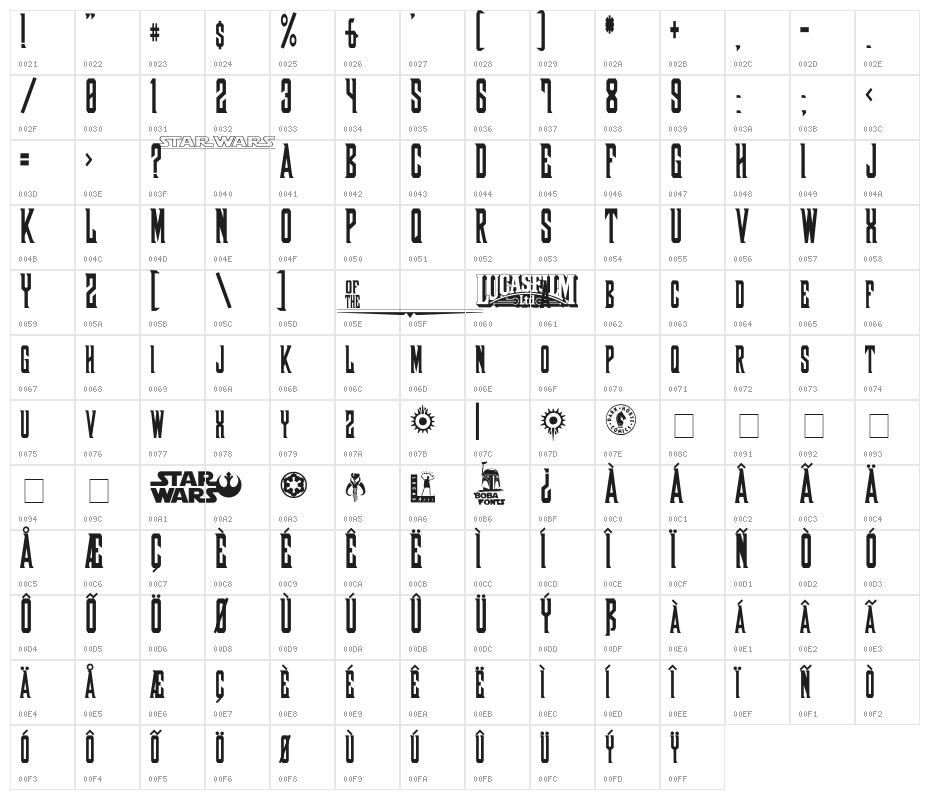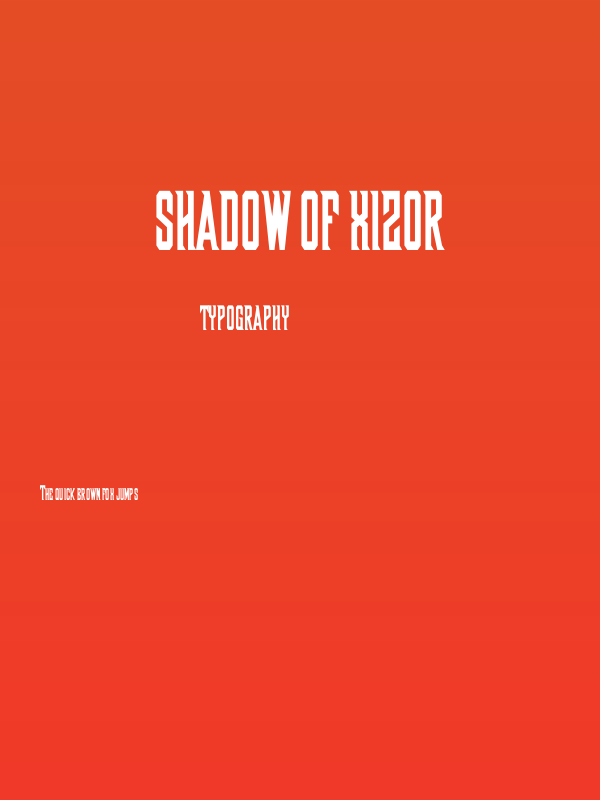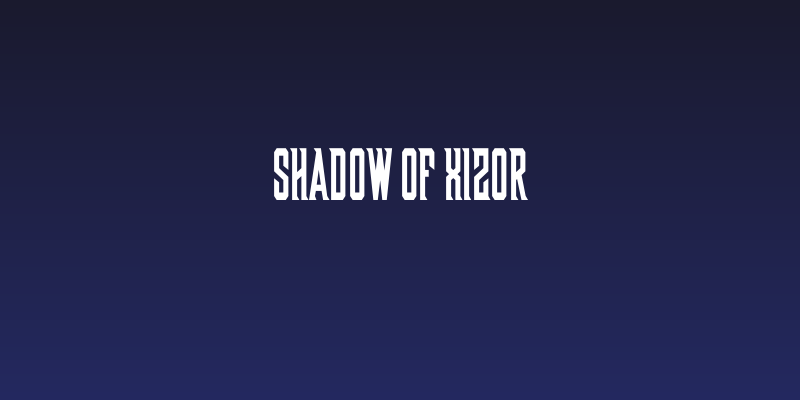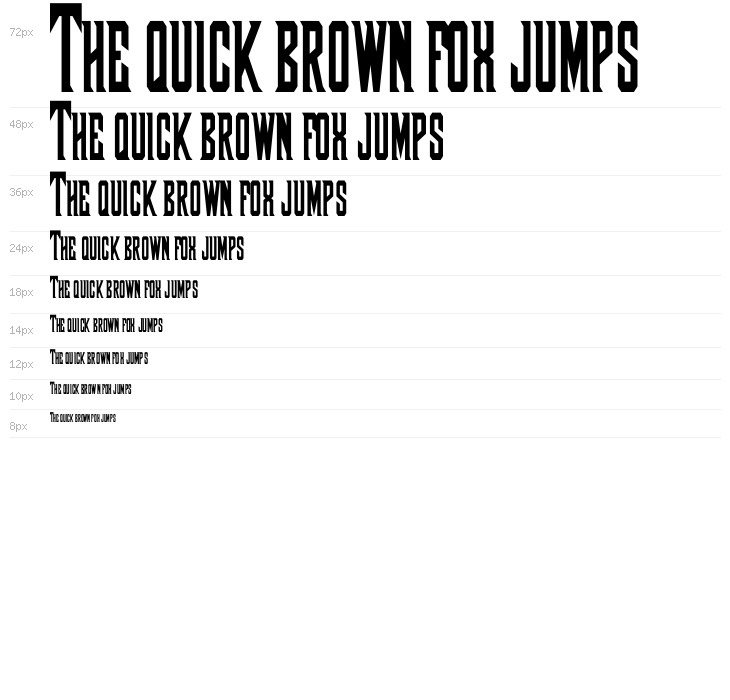
Shadow of Xizor Font
Shadow of Xizor Description
This font features a bold and striking design with a strong presence, characterized by its tall, narrow letterforms and sharp angles. The uppercase letters are particularly elongated, giving a sense of height and power. The font exhibits a high contrast between thick and thin strokes, enhancing its dramatic appearance. The overall style is reminiscent of vintage poster fonts, often used in contexts that require a commanding visual impact. The numerals and special characters maintain the same boldness, ensuring consistency across all glyphs.
| Proposed Projects | Ideal for use in posters, headlines, logos, and any design requiring a strong, impactful typeface. |